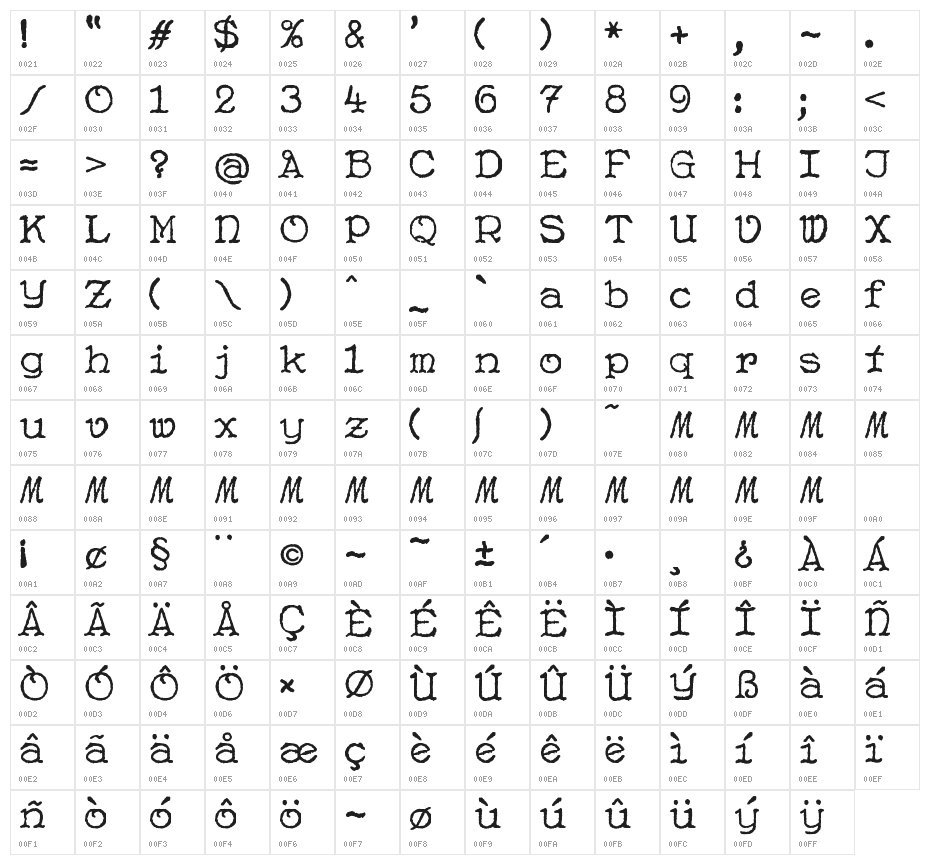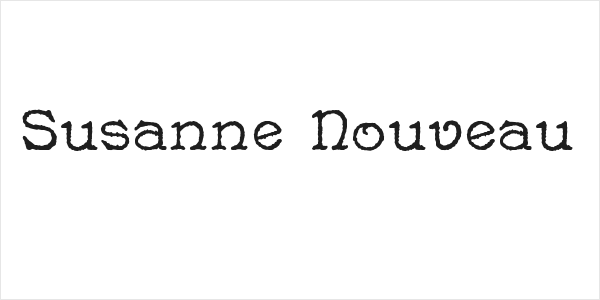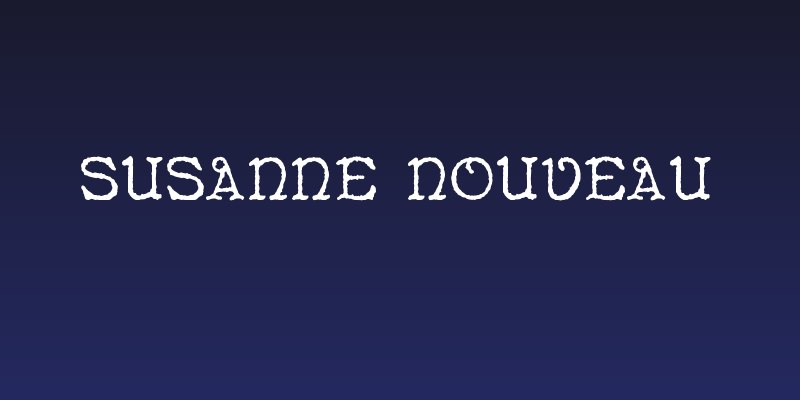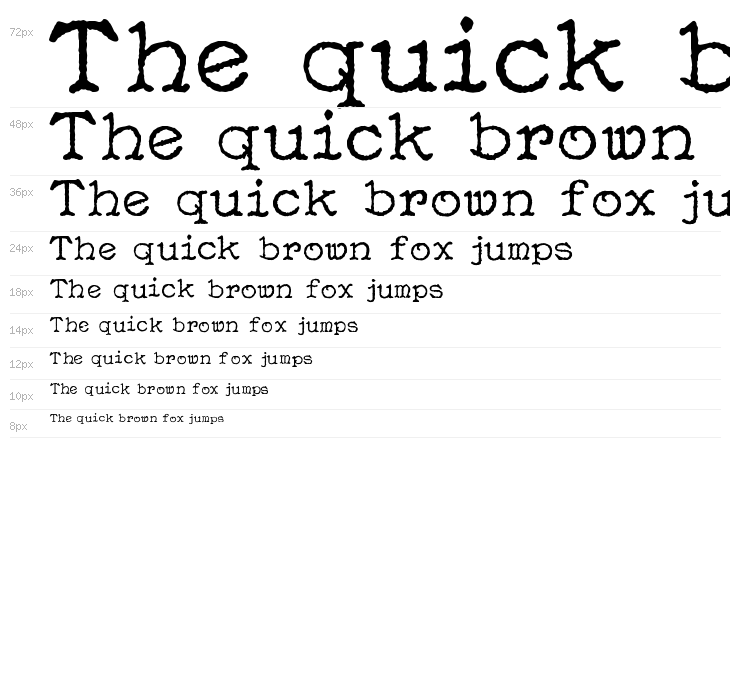
Susanne Nouveau Font
Susanne Nouveau Description
This font features a unique, hand-drawn aesthetic with a slightly distressed appearance, giving it a vintage and organic feel. The characters are bold and have a rough texture, which adds to their charm and individuality. The uppercase and lowercase letters maintain a consistent style, with rounded edges and irregular strokes that suggest a handcrafted quality. The numerals and special characters follow the same design principles, ensuring a cohesive look across all elements. This font's distinctive style makes it stand out, offering a creative and artistic vibe that can enhance various design projects.